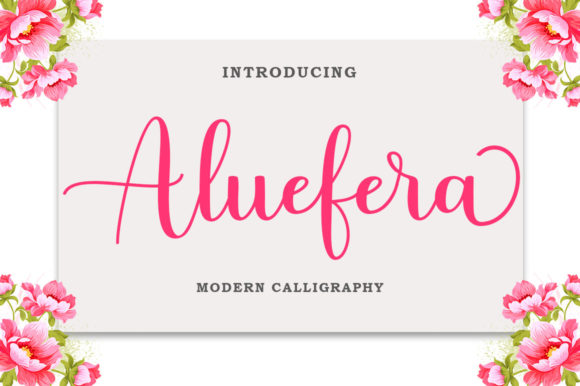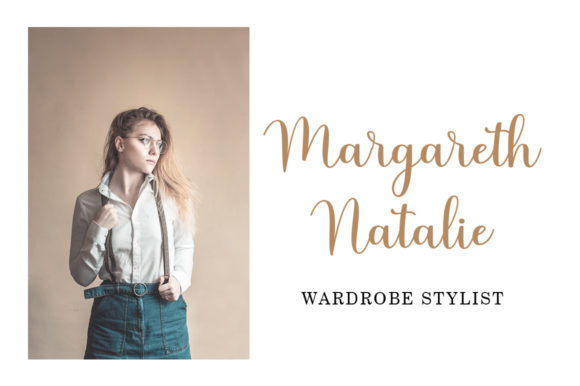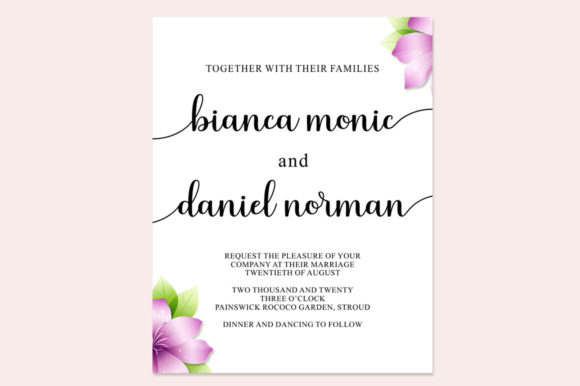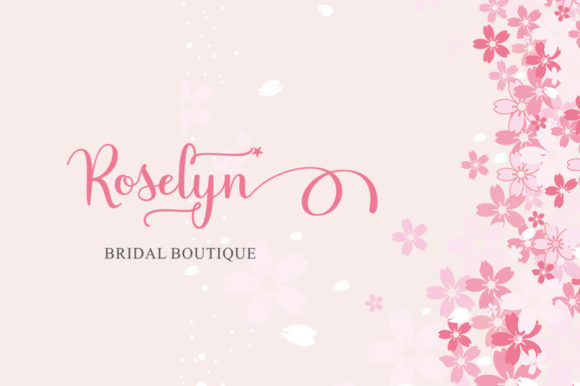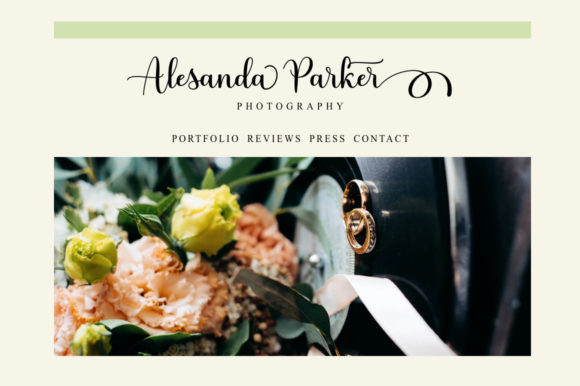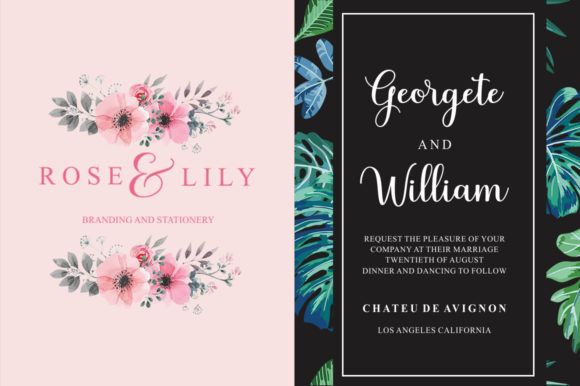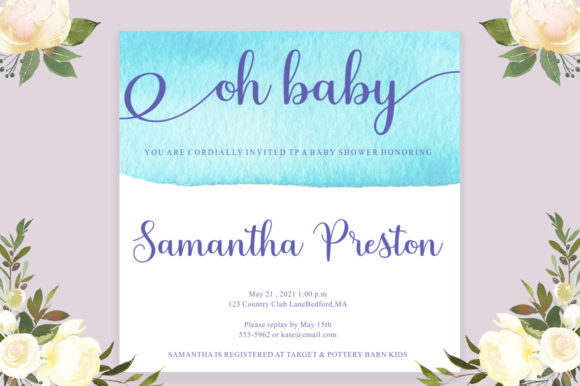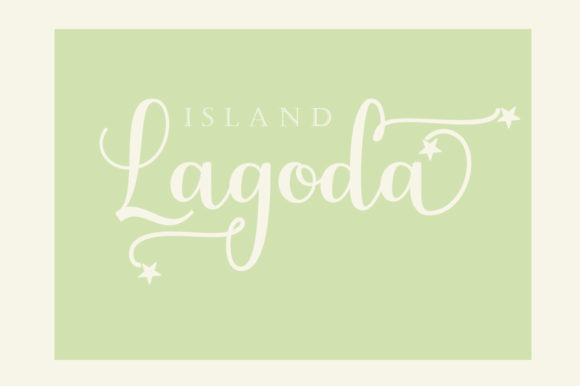
Aluefera Script Font
About Aluefera Script Font
Aluefera Script is a chic, whimsical and beautiful script font. It will add a luxury spark to any design project that you wish to create! This font is PUA encoded which means you can access all of the amazing glyphs and ligatures with ease!